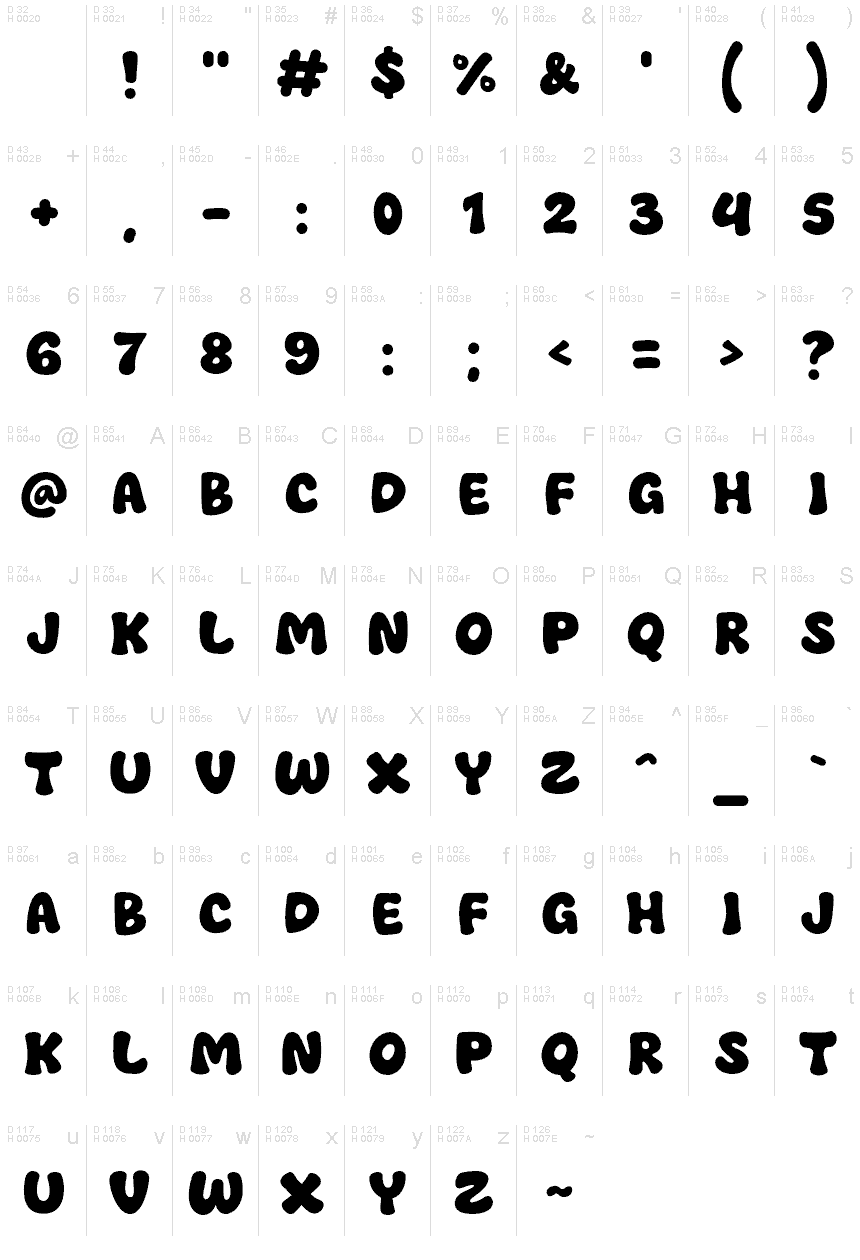
Welah Nuts
Welah Nuts font by MJType is a bold cartoon display font with a retro-inspired look. Its rounded forms and strong presence make for a friendly appearance and casual vibe that endures in all projects that use it. The versatile typeface is suited to diverse modern applications, suitable for the web and print environments alike.